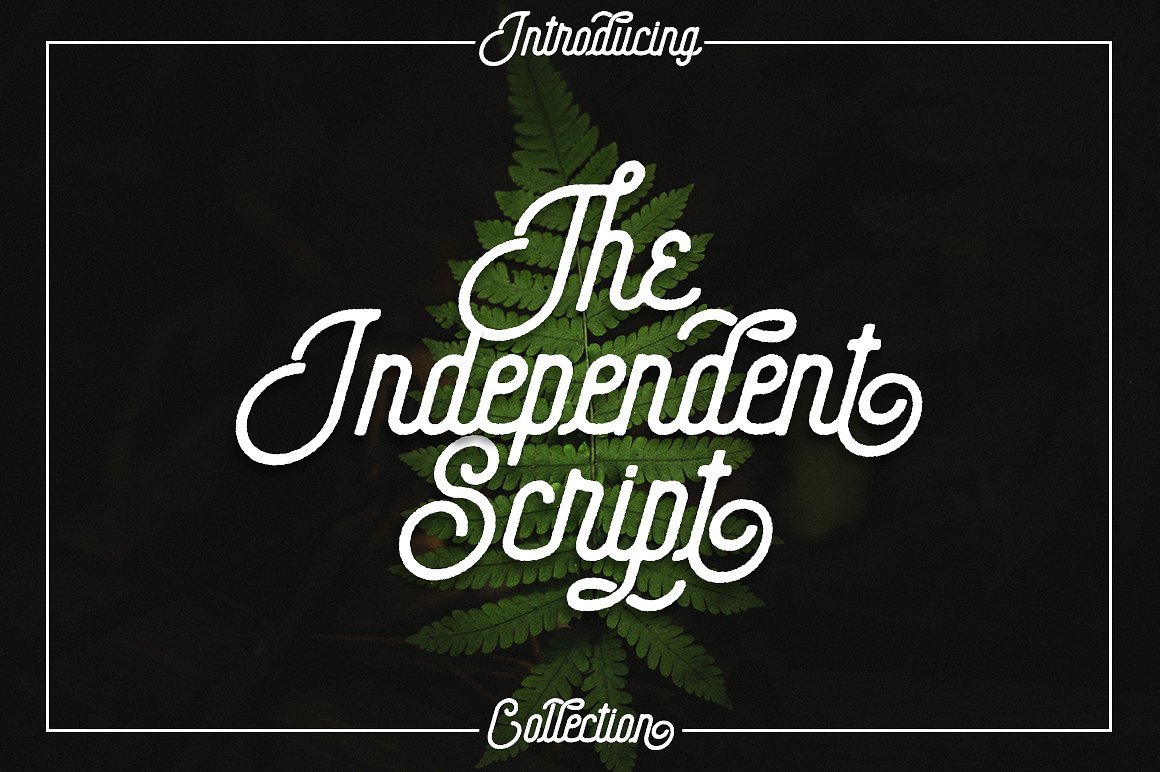
The Independent Collection
The Independent Script Font
The Independent Collection is a mega fresh 3 font family with a mono weight cursive script and a complementary subtly rounded sans-serif with a lot of alternate characters. Use swashes, stylistic, contextual alternates and final forms!. This Fonts is Great for Logos, Lettering, Clothing Design, Poster, Label, Quotes, etc.